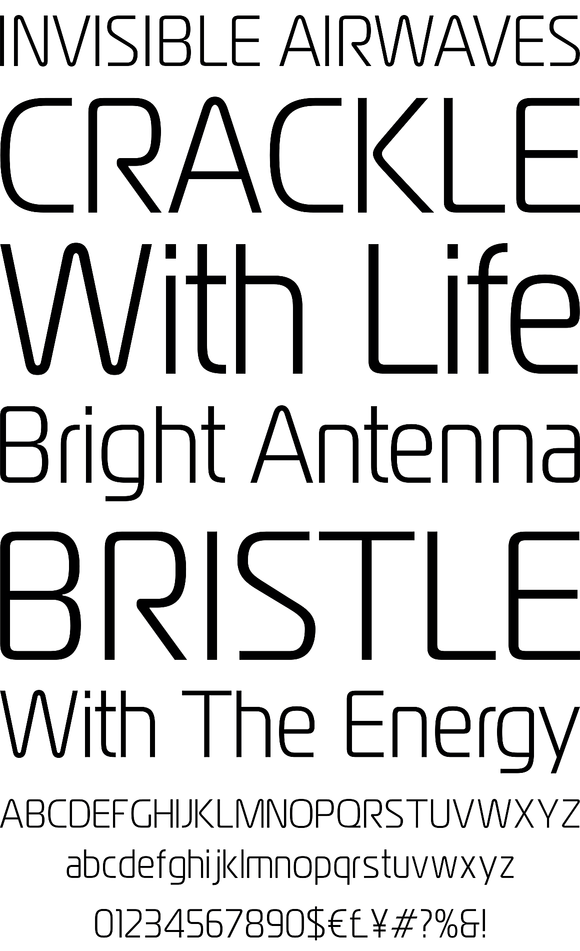
Magistral
The first three weights of the family were designed at ParaType (ParaGraph) in 1997 by Dmitry Kirsanov. They were based on the artworks of Moscow graphic designer Andrey Kryukov (1923-1997). The original version was developed by Kryukov in the end of sixties for Russian railways. The proportions and elements of construction was inspired by Eurostile (1962) by Aldo Novarese. For use in advertising and display typography. In 2009 Dmitry together with adding the new styles corrected the old ones and enhanced them with extended character set.